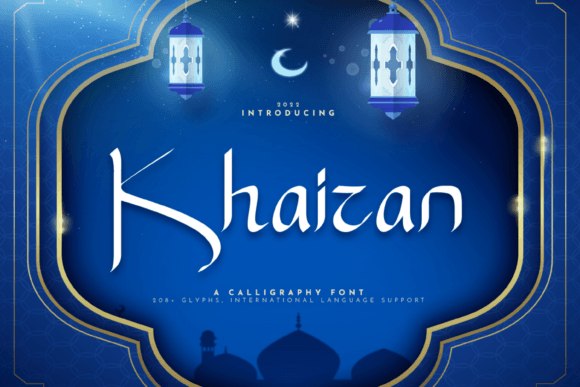
Welcome to the world of Khaizan, a font that captivates your senses and transports you to an era of elegance and sophistication. This beautiful handwritten font, with its sweeping lines and graceful curves, is inspired by the rich artistic traditions of Arabic calligraphy.
Khaizan, meaning "unobtrusive," is a testament to the delicate balance between presence and poise. Its sharp lines and intricate details command attention, yet it maintains an air of subtlety that allows your message to shine through.
With Khaizan, you can effortlessly create designs that exude timeless elegance. Its sweeping ligatures and harmonious flow bring a touch of artistry to every word, making it perfect for projects that demand a touch of grace and sophistication.
Step into the realm of Khaizan, a font that captures the essence of calligraphy and redefines the boundaries of digital artistry. Immerse yourself in its beauty, and watch as your designs come alive with captivating charm and elegance.